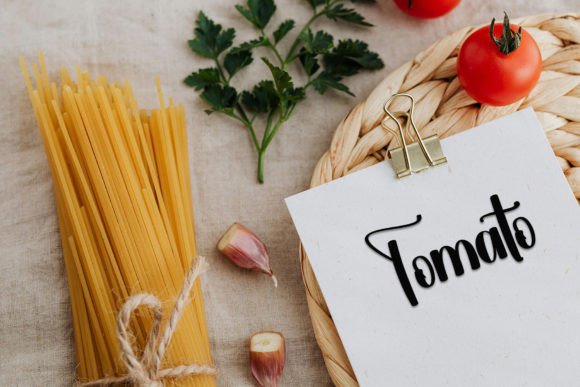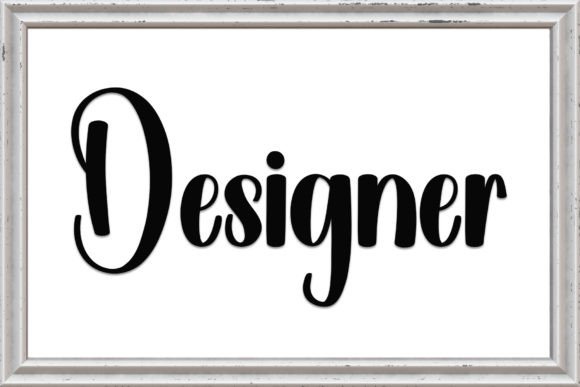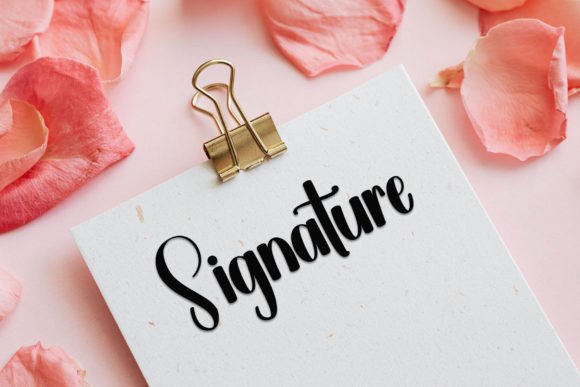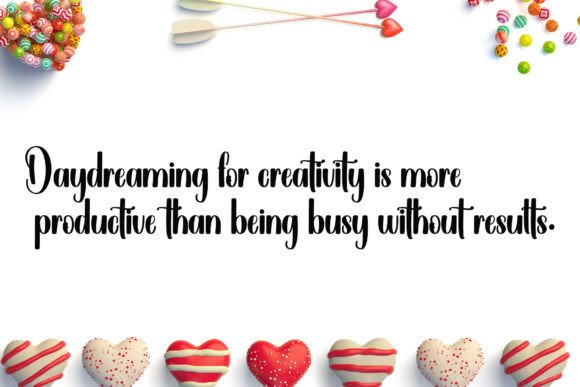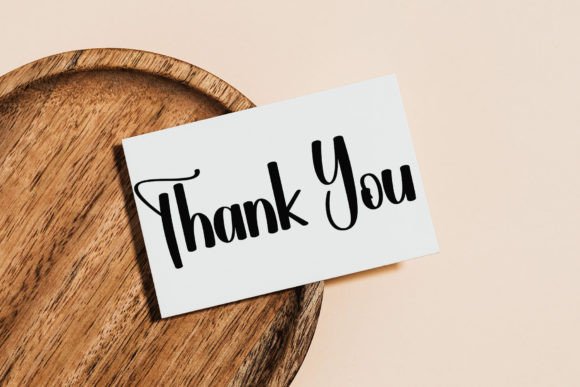
Introducing Embroidery Font: Elevate Your Designs with Timeless Elegance
Embroidery Font is a stylish handwritten font that embodies the essence of contemporary design while paying homage to the classic calligraphy of the past. With its impeccable form and elegant strokes, this font is perfect for designers and crafters looking to add a touch of sophistication to their projects.
The Inspiration Behind Embroidery Font
Embroidery Font draws inspiration from traditional embroidery, a timeless craft that has been used to adorn fabrics and textiles for centuries. The font’s creator aimed to capture the intricate details and flowing curves of embroidered lettering, resulting in a font that exudes refinement and poise.
Key Features of Embroidery Font
- Handwritten style: Embroidery Font boasts a beautiful, handwritten style that adds a personal touch to any design project.
- Contemporary atmosphere: Despite its classic inspiration, Embroidery Font has a distinctly modern feel that makes it suitable for a wide range of design applications.
- Impeccable form: The font’s precise and elegant strokes ensure that it remains legible and visually appealing, even at smaller sizes.
- Elegant and classy: Embroidery Font is designed to add a touch of sophistication to any design project, making it perfect for luxury brands, wedding designs, and other high-end applications.
Uses for Embroidery Font
Embroidery Font is an incredibly versatile font that can be used in a variety of design projects, including:
- Logo design: Add a touch of elegance to your brand’s logo with Embroidery Font.
- Wedding design: Use Embroidery Font to create beautiful wedding invitations, stationery, and decorations.
- Fabric design: Embroidery Font is perfect for designing fabric patterns, including quilts, tote bags, and other textile projects.
- Digital design: Use Embroidery Font in digital designs, such as social media graphics, blog headers, and email templates.
Embroidery Font is a stunning handwritten font that brings a touch of timeless elegance to any design project. With its impeccable form, elegant strokes, and contemporary atmosphere, this font is perfect for designers and crafters looking to add a touch of sophistication to their work. Whether you’re designing a logo, wedding stationery, or fabric pattern, Embroidery Font is sure to impress.